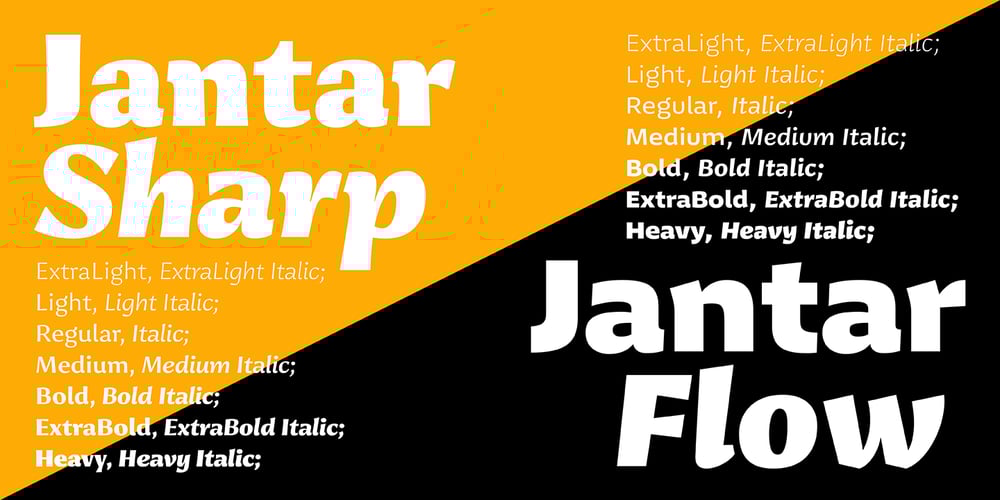
Jantar Flow Font Family was designed by Radek Łukasiewicz and published by CAST. Jantar Flow contains 14 styles and family package options. Jantar Flow is a humanist sanserif type family tailored for continuous reading for both printing and screen. With its large x-height and low contrast it also performs very well in captions, side notes, and short paragraphs set in small sizes.Jantar Flow Italic is distinct and readable. Following a proper italic construction, it shows the fun side of the family yet keeps the features of the upright.Jantar Flow – as well as its teammate Jantar Sharp – comes in seven weights from ExtraLight to Heavy, each with accompanying italics. It has a tabular and proportional set of figures in both old style and lining options, and also a special set of hybrid figures sitting between x-height and capitals. Superscripts and subscripts are provided together with a vast collection of diacritics covering all European languages as well as a set of case-sensitive characters. Jantar, the pairing superfamily. ‘Jantar’ is an old Polish name for ‘amber’, a fossilised resin – a substance that is robust and organic at the same time. These qualities somehow reflect the feeling behind the Jantar families, ‘Flow’ and ‘Sharp’.Jantar Flow was designed along with Jantar Sharp. As part of the Jantar superfamily these two faces are perfectly paired: though not based on the same skeleton, they share the same design parameters and the same character set, but each one works independently with its peculiar features. Designed for publishing for print and web, as well as for branding, the Jantar superfamily was inspired by common font pairings of the digital age like Helvetica/Times or Verdana/Georgia. Jantar Flow and Jantar Sharp communicate with individual yet complementing voices, just like two trained acrobats can perform alone but also know well how to perform together.